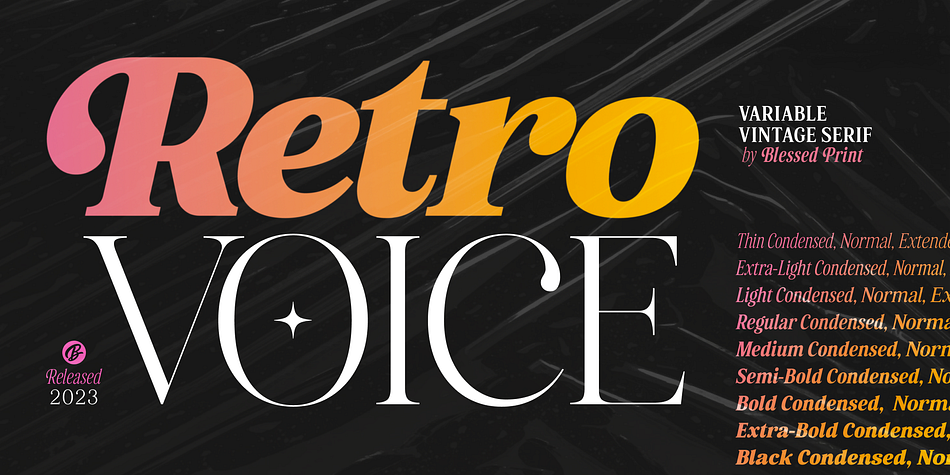
Retro Voice
Designed by Dmitrii Mikitenko, Retro Voice is a serif font family. This typeface has one hundred and sixty-five styles and was published by Blessed Prints.
Retro Voice, the variable serif font from BlessedPrint designed to capture the essence of the ‘80s and ‘90s. Inspired by vintage magazine headlines, this font comes in regular, slant, and italic versions, allowing adjustments in three axes: width, weight, and contrast.